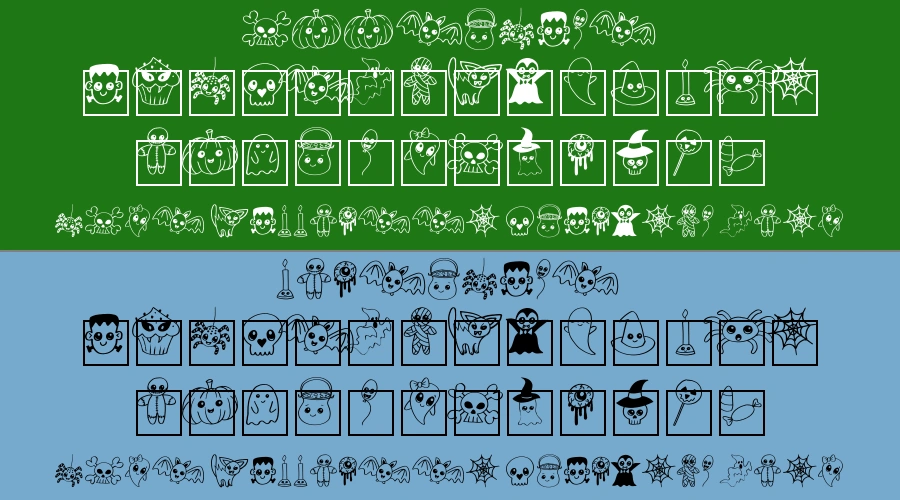
About Cute Halloween Drawings Font
Cute Halloween Drawings Font stands out for its distinctive combination of balanced weights and performance stability. Ideal for engineering drawings, it provides the value and design heritage that professional projects demand. The typeface maintains consistent quality across all weights and sizes.
Key features include refined consistent strokes and practical contextual alternates, enhancing typographic expression. In event graphics applications, Cute Halloween Drawings Font demonstrates exceptional output consistency. The stem weight and character contribute to its distinctive character and professional appeal.